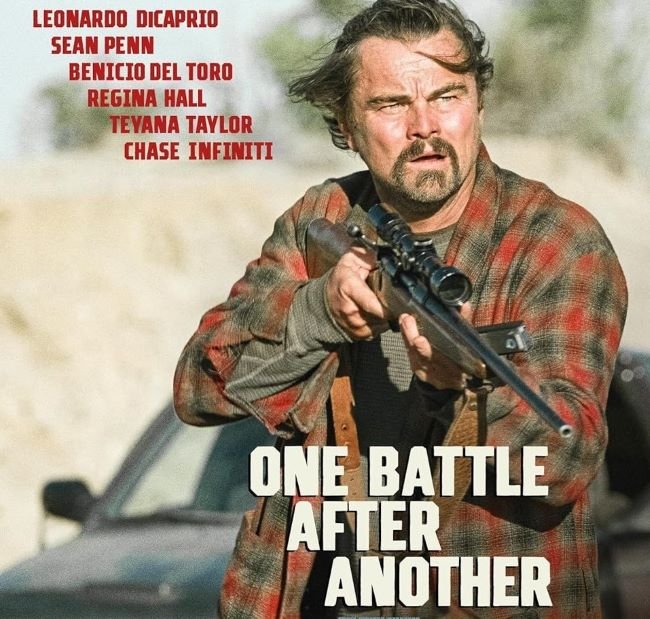
One Battle After Another Font
One Battle After Another font — with the closest match being the Authority Rounded typeface, and two free alternatives available to approximate its aesthetic — arrives wearing its subject matter in its letterforms: distressed font, bold, and carrying the kind of surface texture that communicates something has been through repeated impact and survived. The title itself names a condition rather than an event, and the typography reinforces that reading — these are not letters that have been composed, they are letters that have been endured.